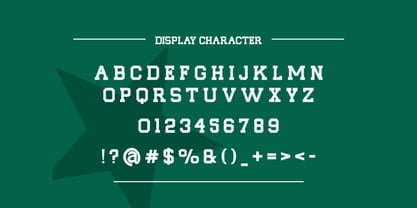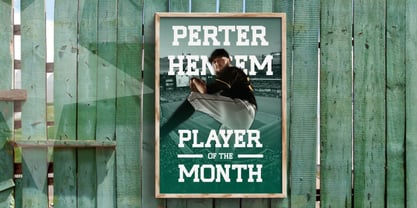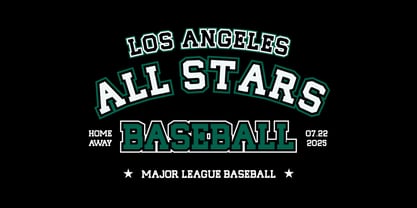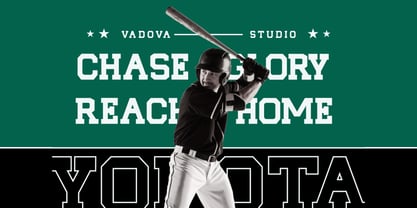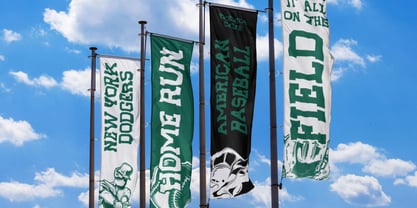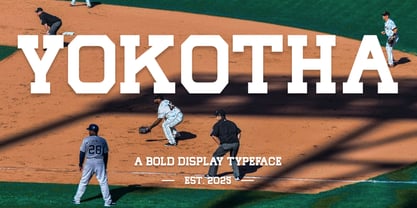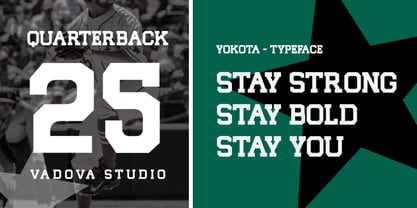
Yokotha
Yokotha is a bold display typeface designed with classic varsity flair and strong athletic energy. Its sharp block serifs, solid construction, and clean forms make it a top choice for sports branding, college merchandise, team posters, and retro-inspired design. Whether you’re crafting a school banner or energizing a sports logo, Yokotha delivers power and pride in every letterform. Stand out with a font built for champions.
Suitable for sports logo, varsity college branding, athletic badge, baseball team, retro design, school event, motivational quote, banner headline, print merch, gym signage, esport graphic, strong title, youth club, stadium display, pep rally poster, spirit week promo, bold typographic design, competitive branding.